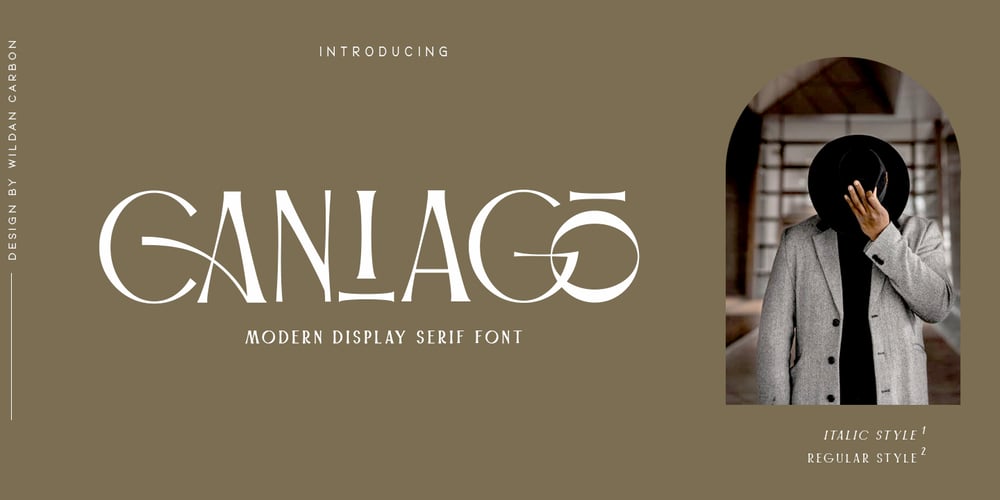
Caniago
Caniago font
Caniago Font Family was designed by Wildan Carbon and published by Wildan Type. Caniago contains 2 styles and family package options. Introducing new typeface. Caniago- A modern, luxury, fashionable display serif font. Embargo perfectly used for product presentation, elegant logo design, packaging or invitation cards or heading text. it is allcap with symbol and multilingual supportTwo style,Caniago ItalicCaniago RegularFeaturesTwo style/ Numbers & Punctuation / Extensive Language Support/ligature/Alternate